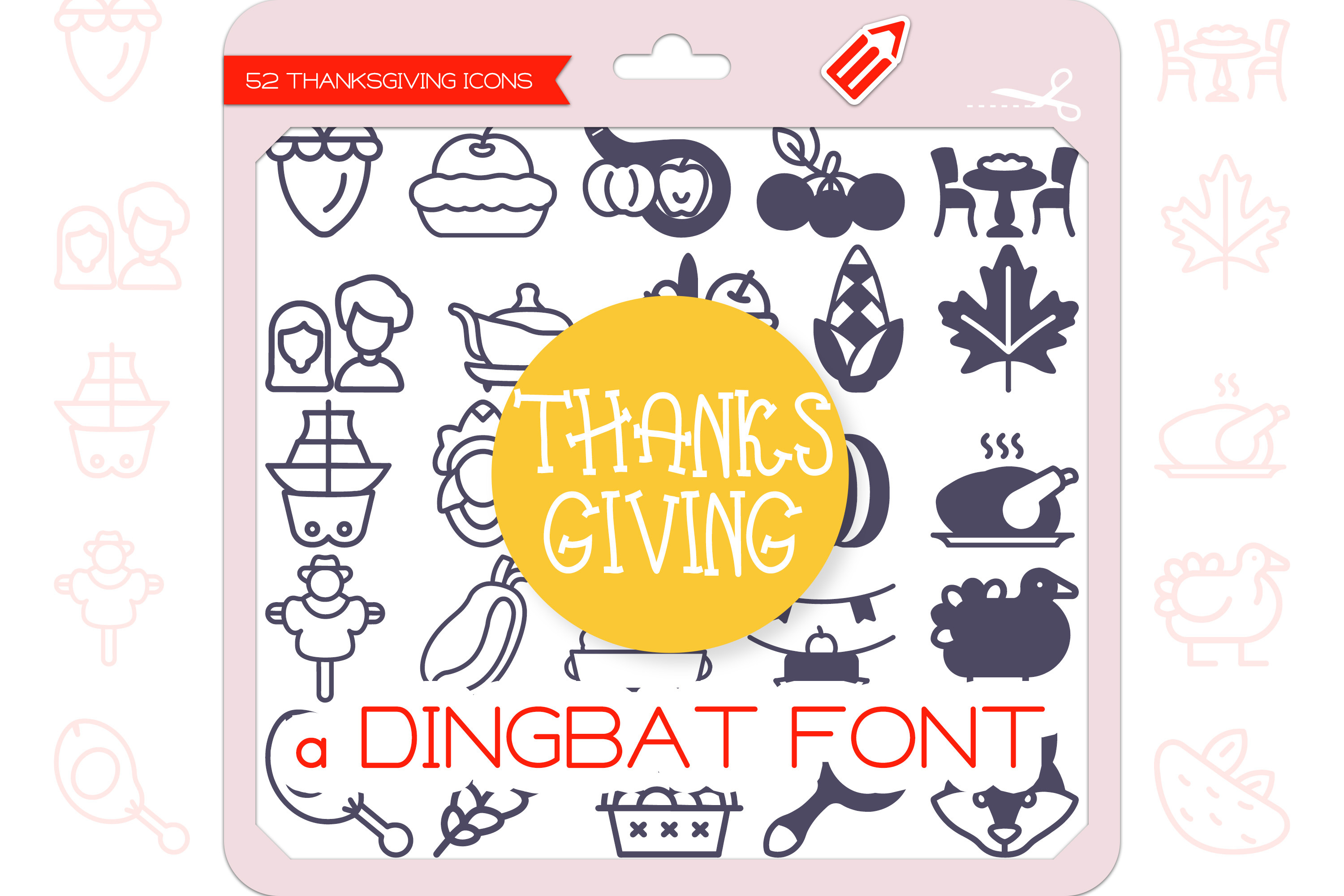
Thanksgiving Icons - Dingbat Font
Thanksgiving is a unique and cute dingbat font. It contains 52 icons in 2 styles (Outline & Filled-Outline). Add this font to your creative ideas and make your arts outstanding!
The Thanksgiving Icons Dingbat Font featuring 26 things Acorn, Apple Pie, Cornucopia, Cranberries, Dinner Table, Family Gathering, Gravy Boat, Harvest Basket, Indian Corn, Maple Leaf, Mayflower Ship, Native American, Pilgrim Hat, Pumpkin, Roast Turkey, Scarecrow, Squash, Stuffing, Thankful Banner, Thanksgiving Turkey, Turkey Drumstick, Wheat Sheaves, Wicker Basket, Wishbone, Woodland Animals, Yam